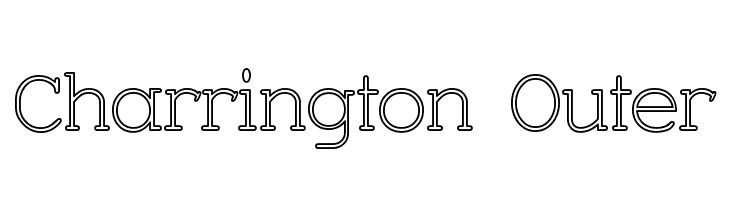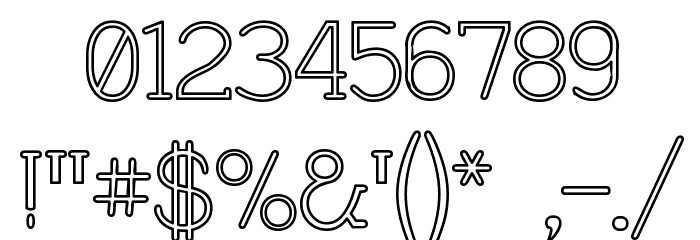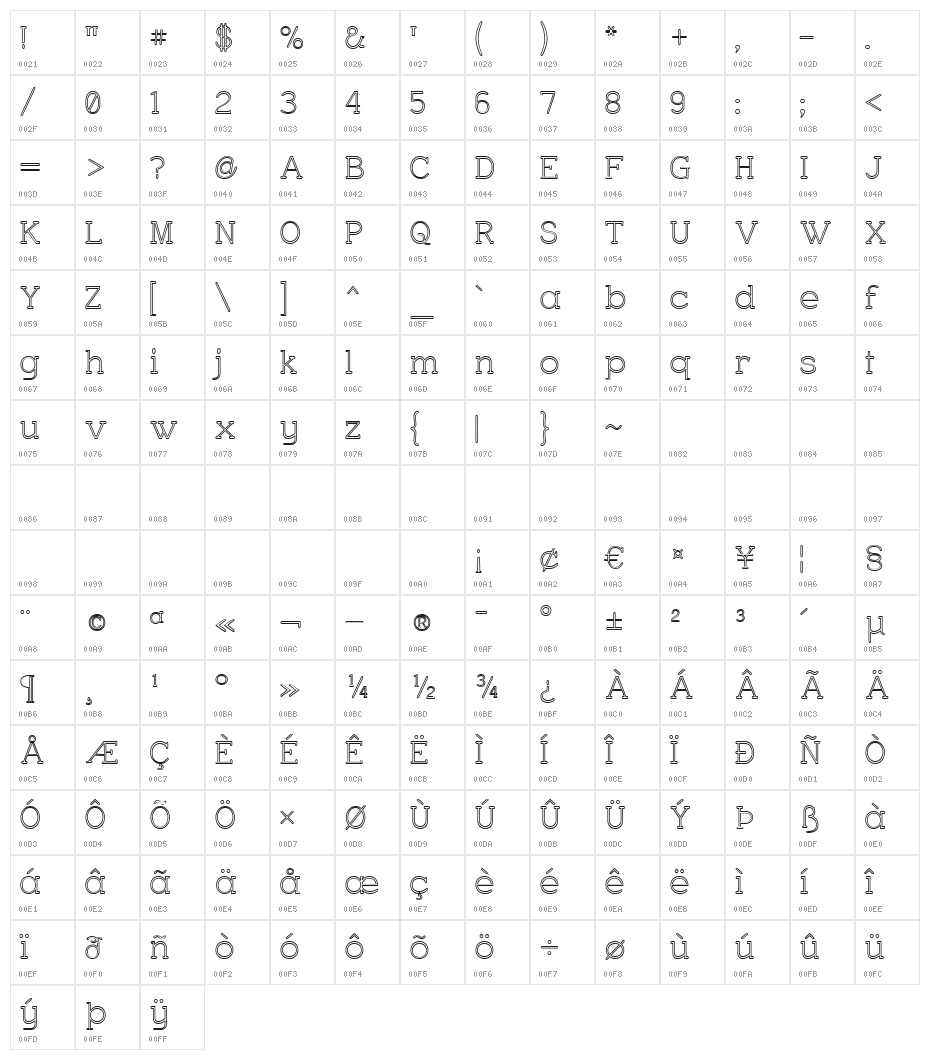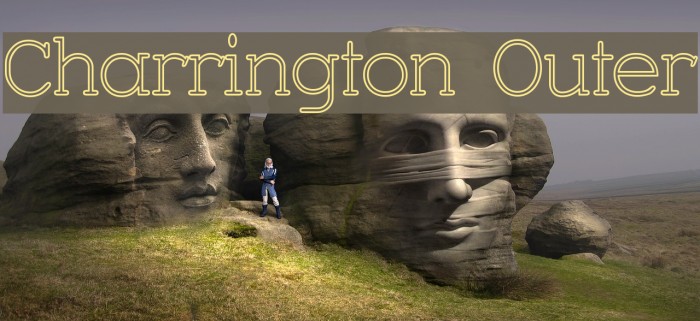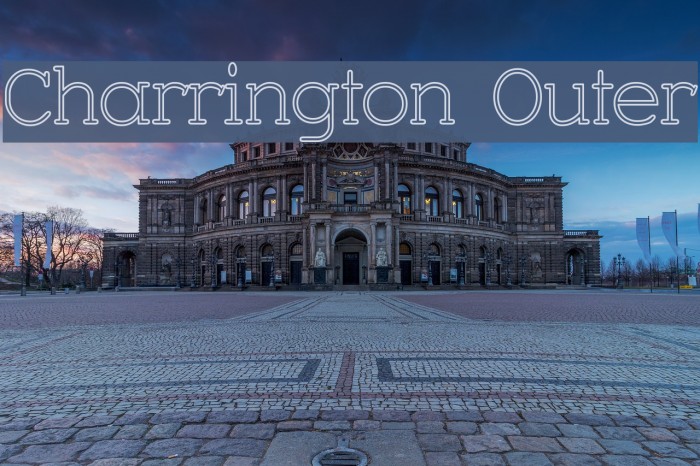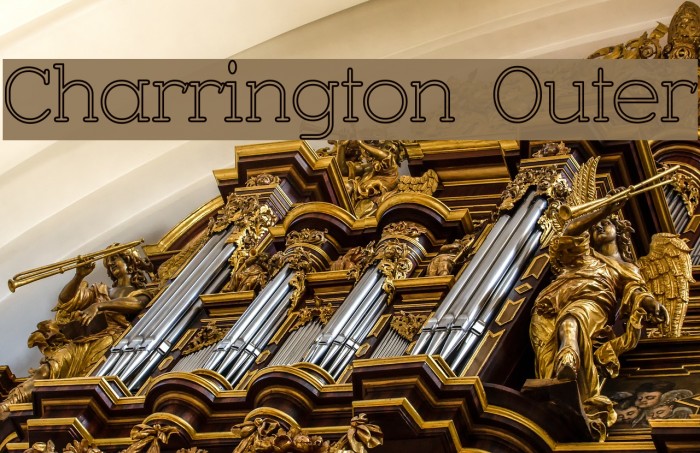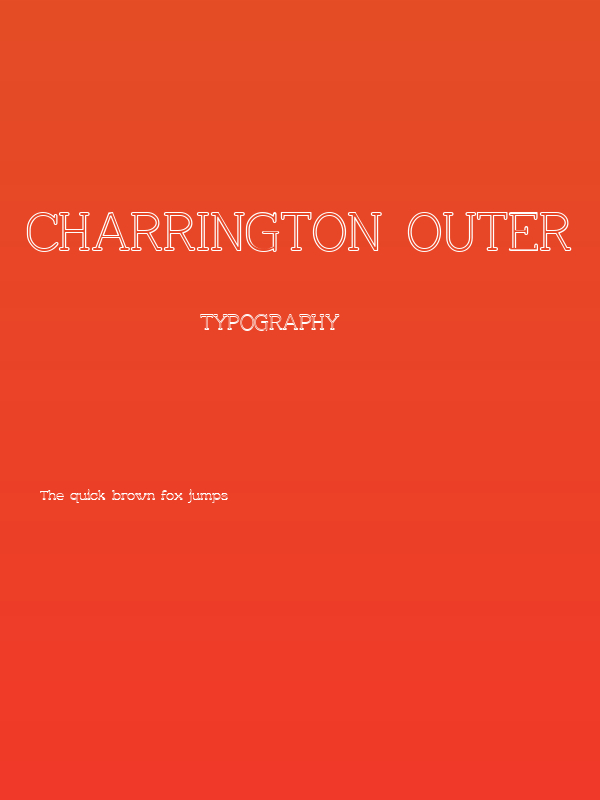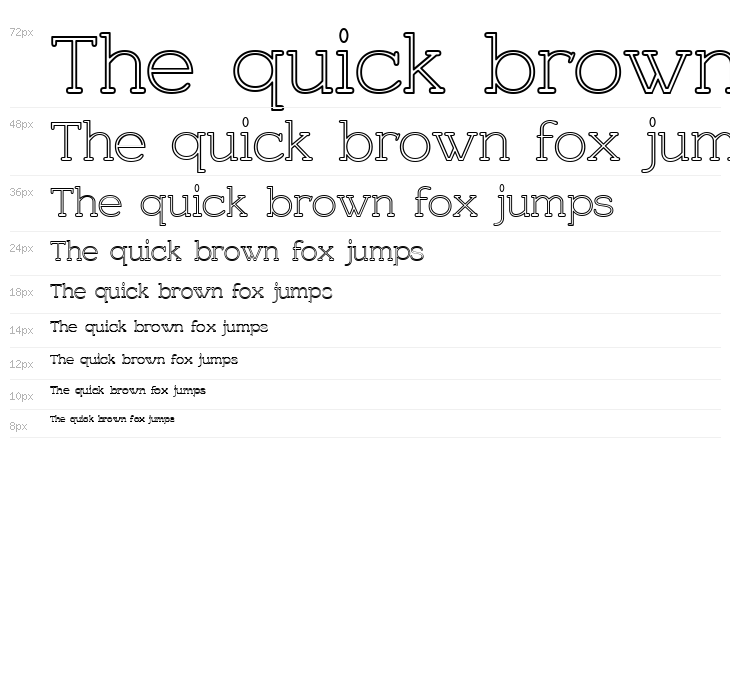
Charrington Outer Font
Charrington Outer Description
This font features a unique outline style that gives it a distinct and modern appearance. The characters are crafted with a double-line effect, creating a hollow interior that adds depth and dimension. The uppercase and lowercase letters maintain a consistent width, providing a balanced look across the alphabet. Numbers and special characters are designed with the same outline effect, ensuring uniformity throughout. The font's clean lines and geometric shapes make it suitable for a variety of design applications, offering a contemporary twist on traditional letterforms.
| Proposed Projects | Ideal for branding, posters, headlines, and any project requiring a modern and eye-catching typeface. |